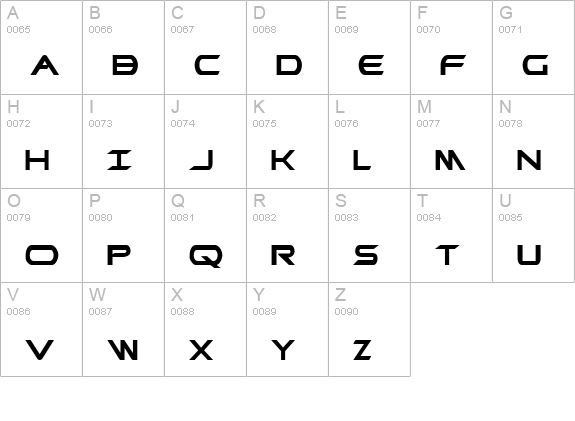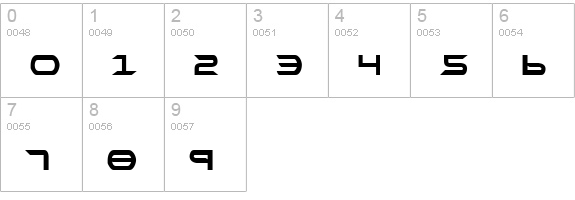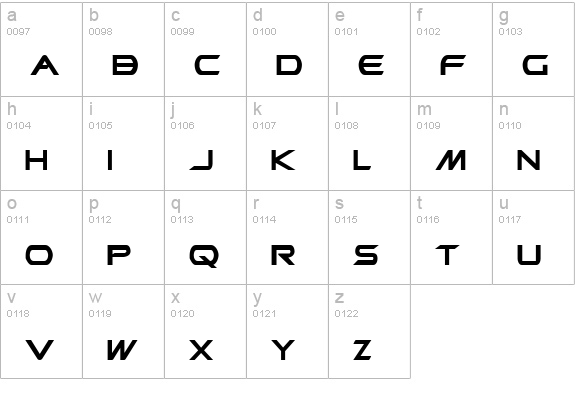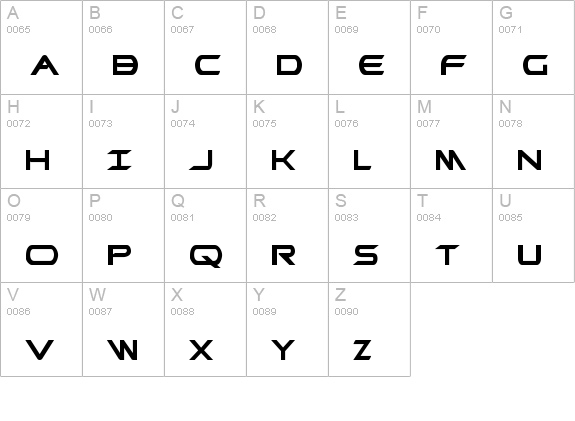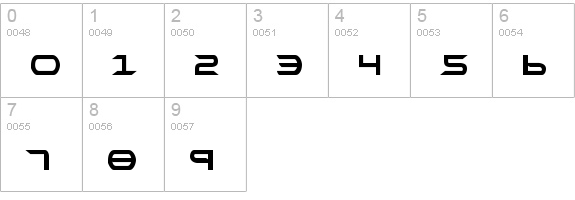
Promethean Bold is a strong, high-contrast variant in the Promethean typeface family \xE2\x80\x94 well suited to headlines, attention-grabbing titles, and strong calls-to-action.
Promethean Bold is a striking and contemporary font that commands attention with its bold and powerful presence. This font exudes confidence and strength, making it perfect for headlines, titles, and other eye-catching designs. Its clean lines and sleek design give it a modern and professional look that is sure to make a statement. Best of all, Promethean Bold is available for free! You can easily download this impressive font at FontsMarket.com and start using it in your projects right away. Whether you're working on a poster, website, logo, or any other creative endeavor, Promethean Bold will elevate your design and leave a lasting impression. Don't miss out on this fantastic opportunity to enhance your work with this exceptional font.